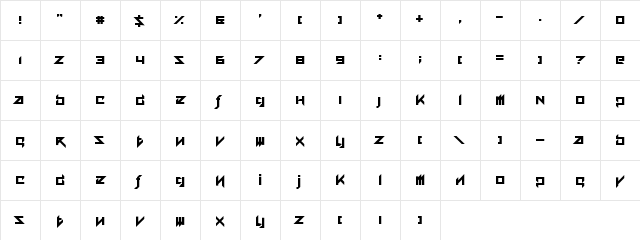
Ace Adventure Regular Free Font
Ace Adventure Regular
Designer: Andrew McCluskey
Design Context for Ace Adventure
Ace Adventure is a composed and adaptable typeface that performs quietly and consistently across a wide range of design contexts.